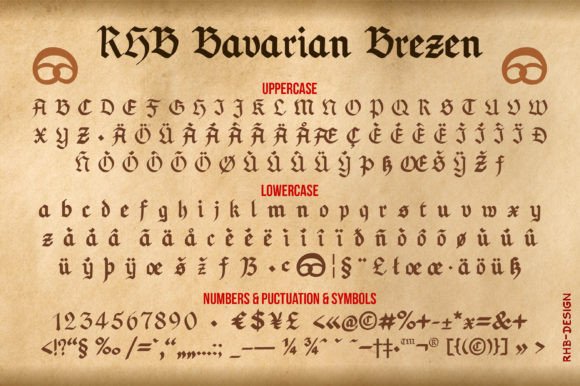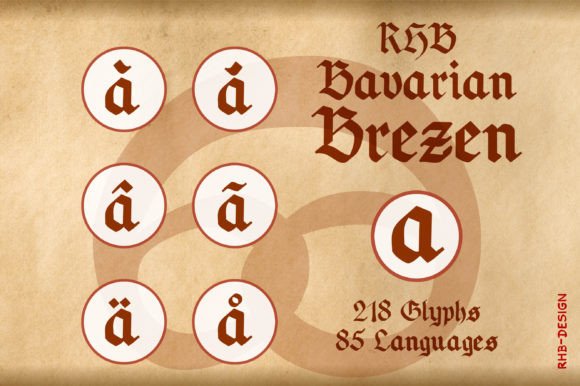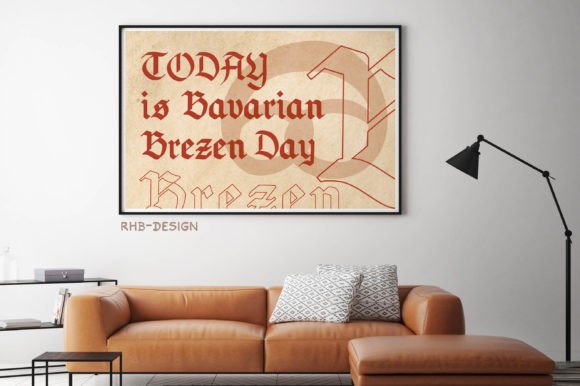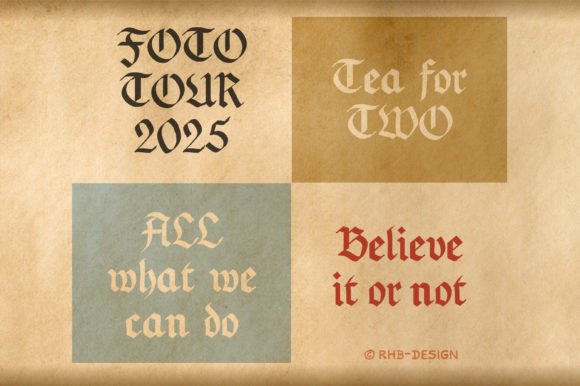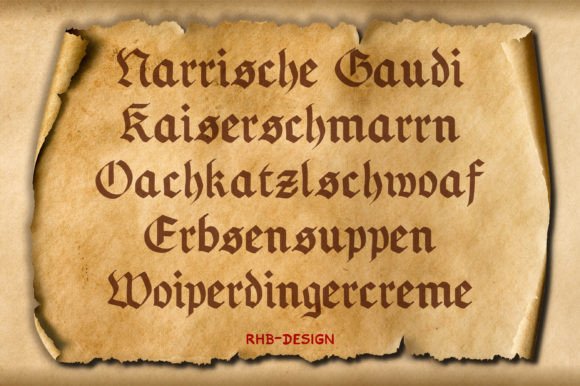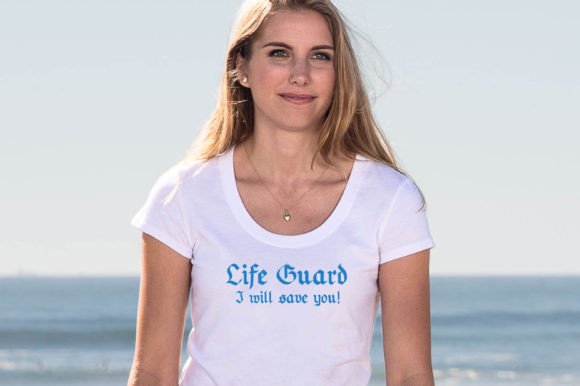
Introduction to Bavarian Brezen Font
As I sat in front of my iPad, Apple Pencil in hand, I felt a rush of creativity wash over me. I was about to embark on a unique and exciting design project – crafting the Bavarian Brezen Font, a beautiful and intricate script inspired by the old German Fraktur script. With each deliberate stroke of the Pencil, the font began to take shape, its high-quality lines and curves a testament to the power of creative expression.
For designers, the Bavarian Brezen Font is a valuable resource, offering a transparent background and a wealth of design possibilities. Whether you’re working on a project related to Bavarian culture, such as an Oktoberfest-themed design, or simply seeking a unique and elegant font for your next creative project, this font is a must-have. And the best part? It’s available for free download, making it an accessible design resource for designers of all levels.
Key Features of Bavarian Brezen Font
- Unique, hand-drawn design with a traditional Bavarian twist, perfect for creative projects.
Honest Review: Bavarian Brezen Font
I recently had the chance to work with the Bavarian Brezen Font, and I’m excited to share my thoughts on this design resource. As a designer, I’m always on the lookout for high-quality fonts that can elevate my creative projects.
- ✨ Unique design style: The Bavarian Brezen Font has a distinctive, hand-drawn feel that adds a touch of personality to any project.
- ✨ High quality: The font is well-crafted and rendered with crisp lines and smooth curves.
- ⚠️ Limited character set: While the font is beautiful, it’s limited to a smaller character set, which may not be suitable for longer blocks of text.
- ⚠️ Transparent background: The font’s transparent background can make it difficult to use on certain backgrounds, so be sure to test it carefully.
Overall, I’m impressed with the Bavarian Brezen Font. Its unique design style and high-quality rendering make it a great addition to any designer’s toolkit. Just be aware of its limitations, and you’ll be all set to create beautiful, creative projects with this design resource.
The Bavarian Brezen Font is a versatile design resource that can be used in various creative projects, including logos, business cards, brochures, and advertisements. Its high quality and unique design make it an ideal choice for designers looking for a distinctive look.